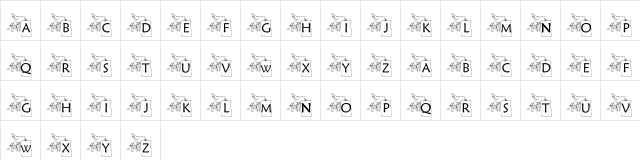
pf_cutebird1 Regular
Design Context for pf_cutebird1 Typeface
pf_cutebird1 is a composed and adaptable typeface that performs quietly and consistently across a wide range of design contexts.